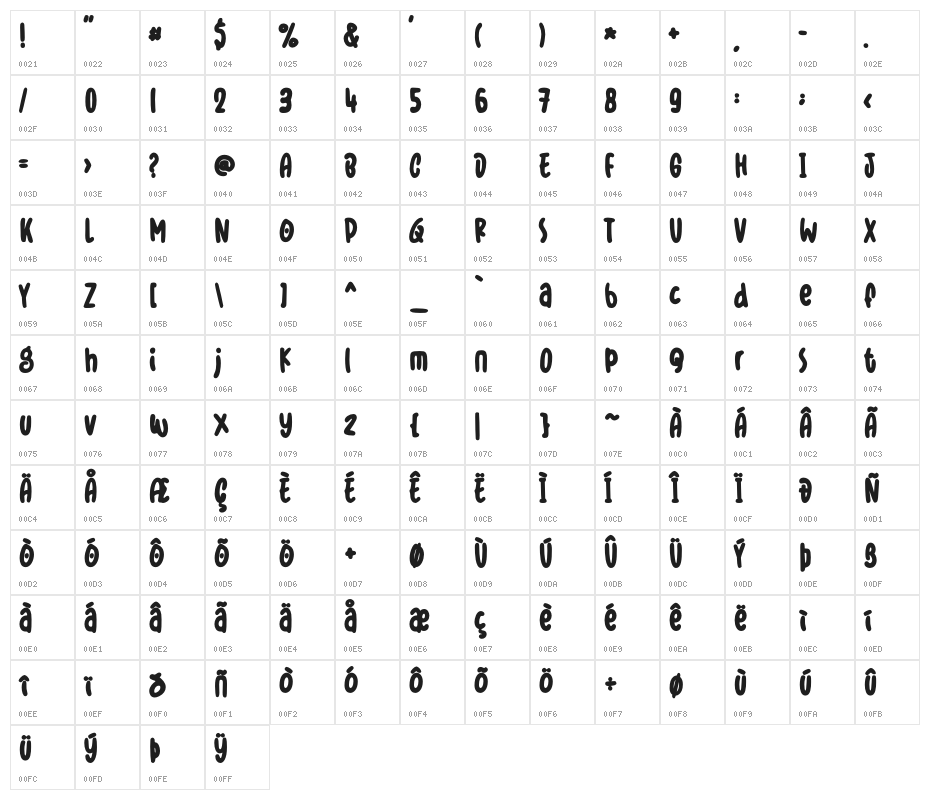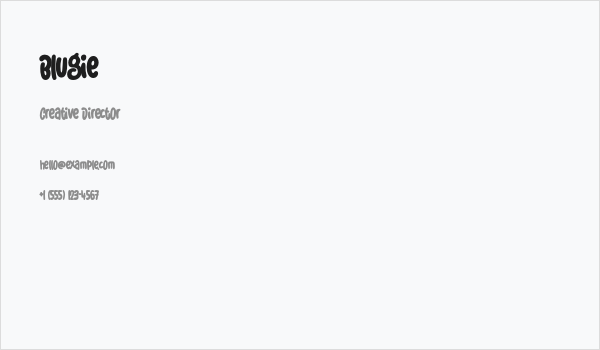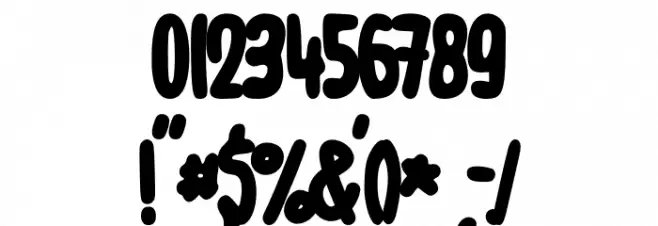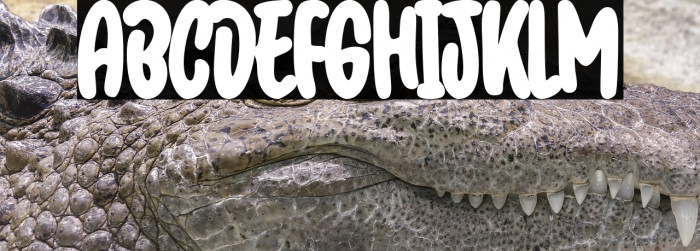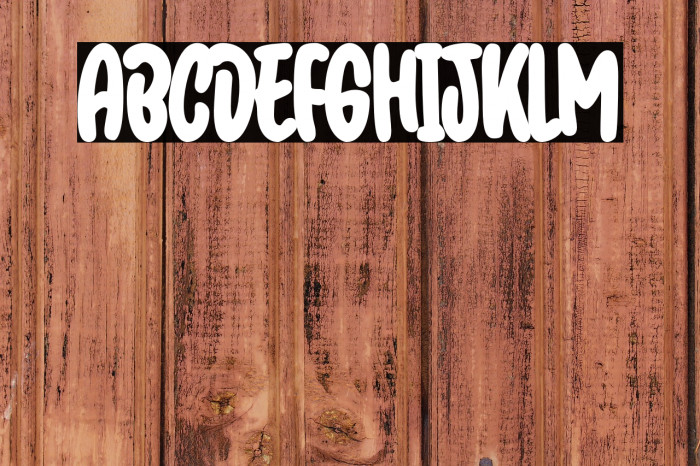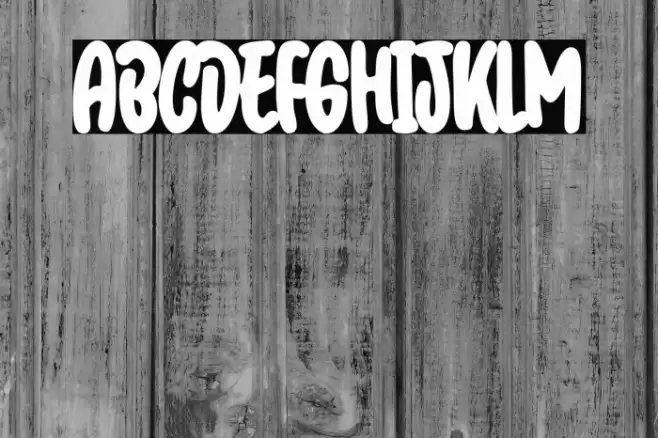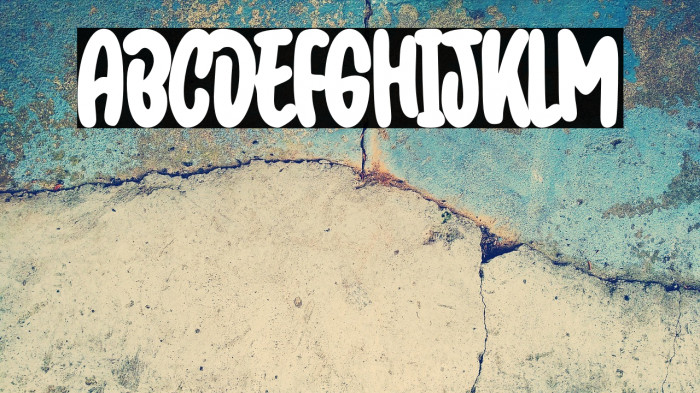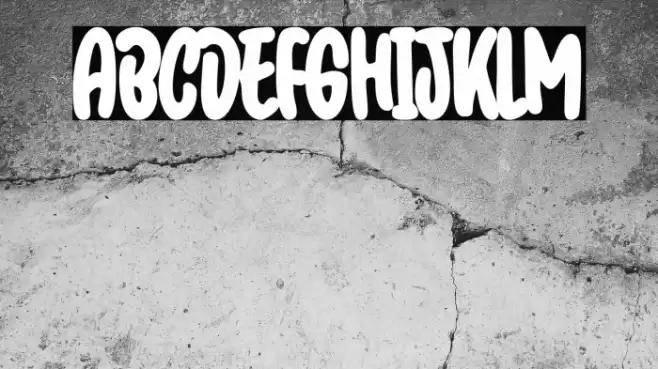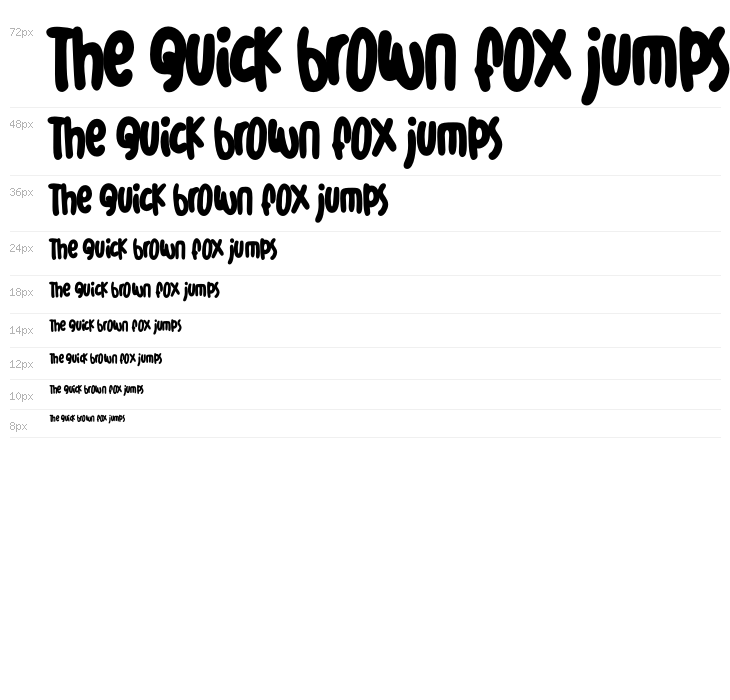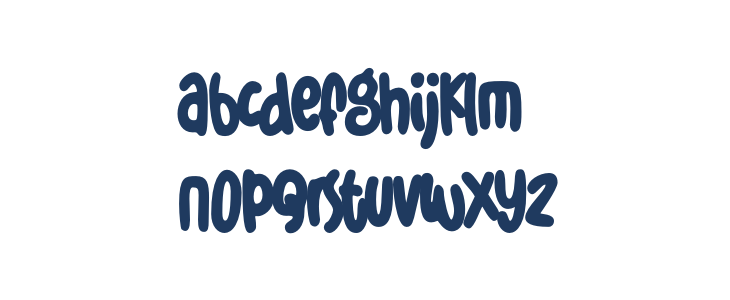
Blugie Font
Blugie Description
This font features a bold and playful style with rounded, thick strokes that give it a friendly and approachable appearance. The characters are slightly condensed, adding a sense of compactness while maintaining readability. The uppercase and lowercase letters have a consistent design, with a whimsical touch that makes them stand out. The numbers and special characters follow the same playful theme, ensuring uniformity across all elements. This font is ideal for projects that require a fun and engaging look, such as children's books, playful branding, or creative posters.
| Proposed Projects | Children's books, playful branding, creative posters, party invitations. |